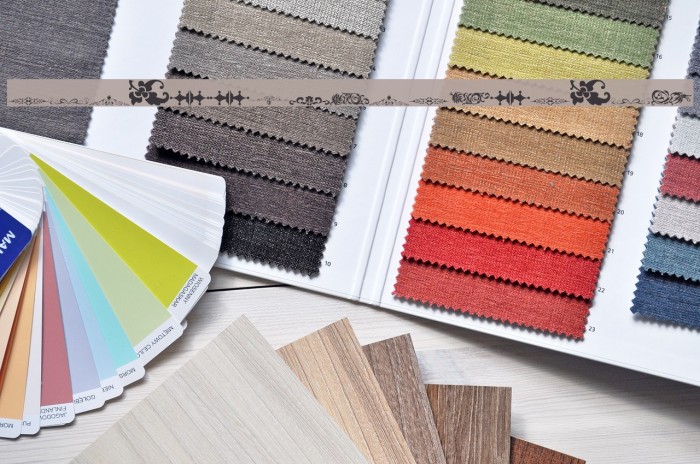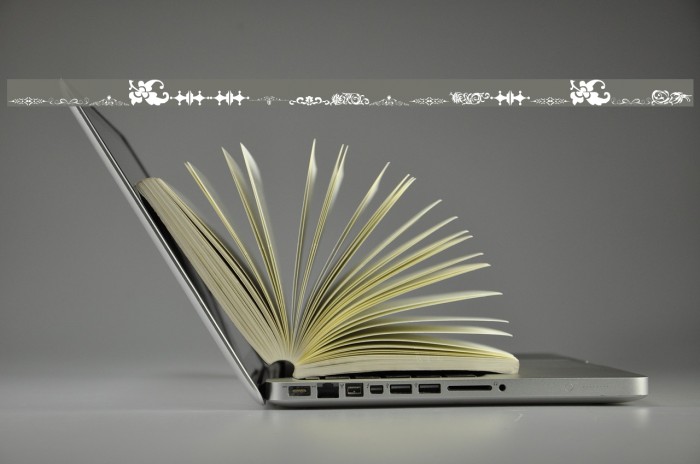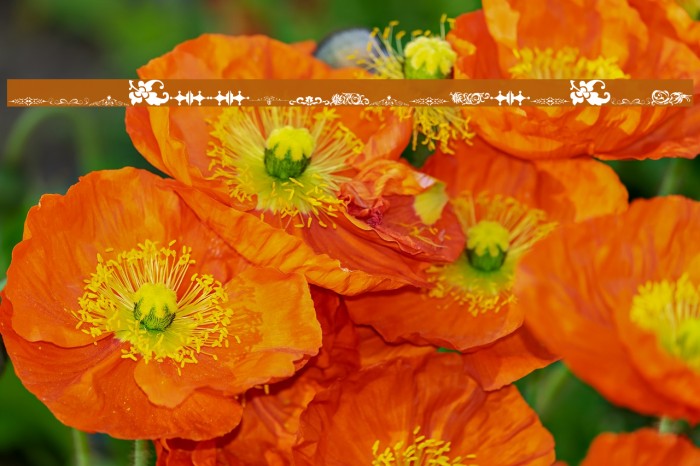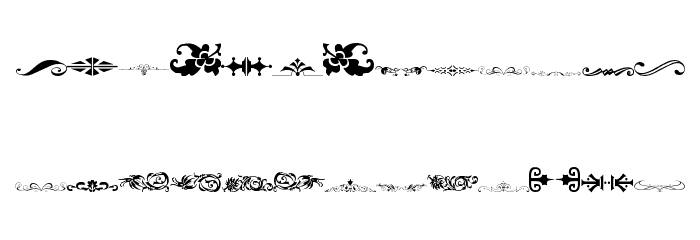
Vintage Decorative Signs 10 Font
Vintage Decorative Signs 10 Description
A collection of ornate, decorative vintage-style border elements featuring flourishes, swirls, and intricate motifs. The designs are highly stylized and intended for embellishment rather than text communication.
Ornate vintage decorative border elements with flourishes and swirls from Uncategorized fonts.
- Proposed Projects: Wedding invitations, certificates, signage, vintage posters, decorative frames, branding for luxury products.
- Overall Style: Vintage, Decorative
- Use Case: Borders, frames, embellishments, ornamental dividers.